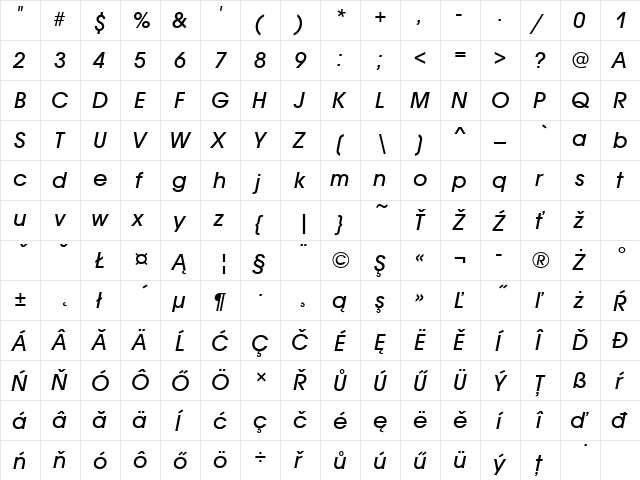
AvantGarGotItcTEEMed Italic
Design Context for AvantGarGotItcTEEMed Typeface
AvantGarGotItcTEEMed offers clean, dependable letterforms without strong stylistic allegiance, making it a practical choice for designers who need flexibility. The dynamic lean of this cut emphasises speed and emphasis in any layout.
Pro Tip: Try AvantGarGotItcTEEMed for annotation and caption copy alongside an upright companion — the contrast in angle creates a dynamic but ordered typographic system.